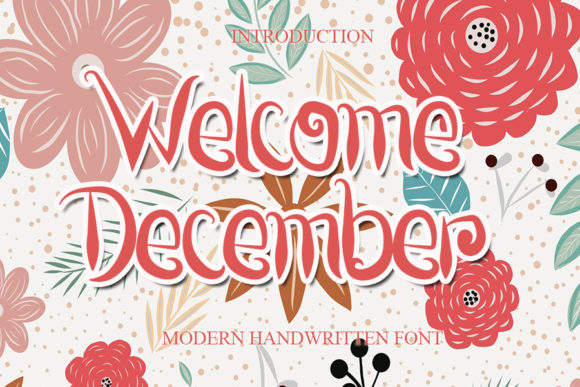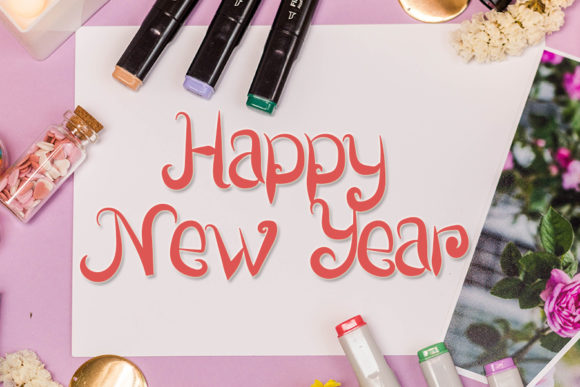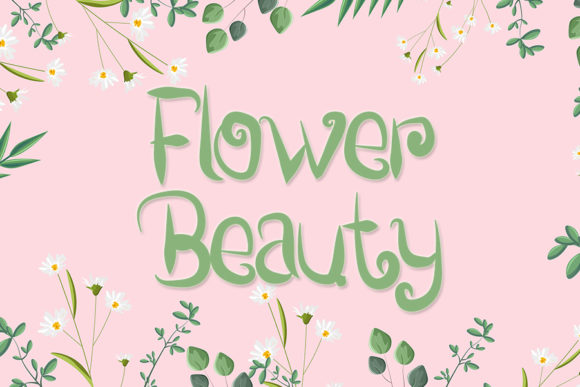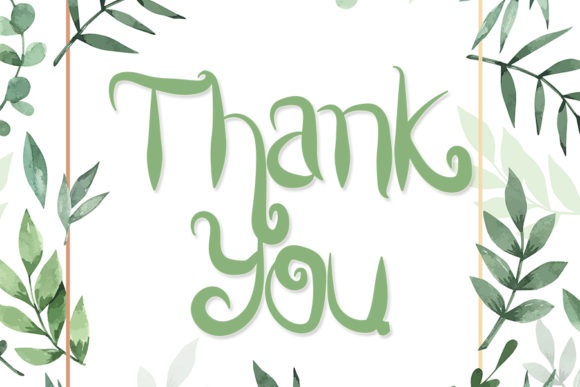
Welcome December Font
About Welcome December Font
Welcome December is an elegant script font, that features a very delicate and classy look. Not too thin and not too thick, balanced and varied, this font was designed to enhance the beauty of your projects.